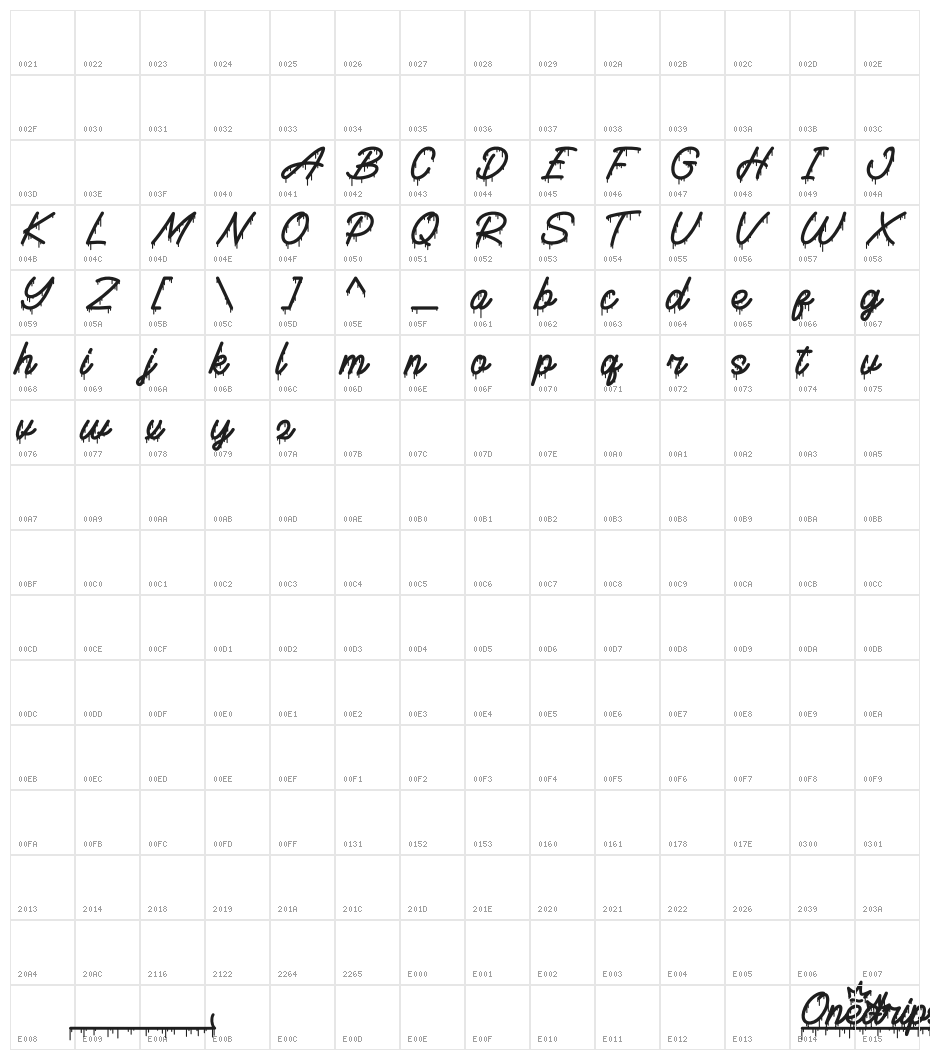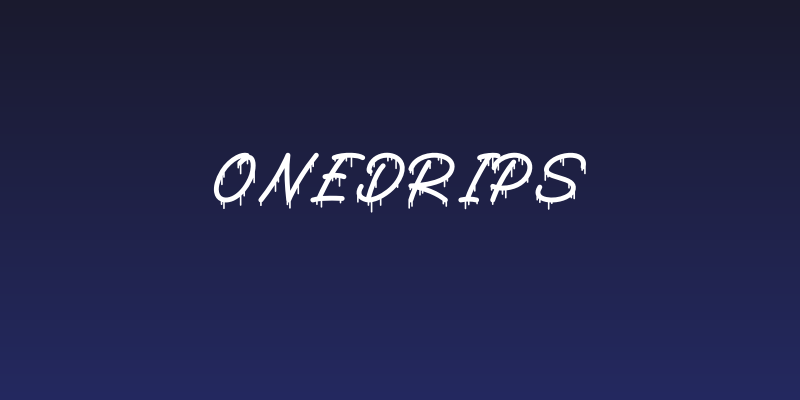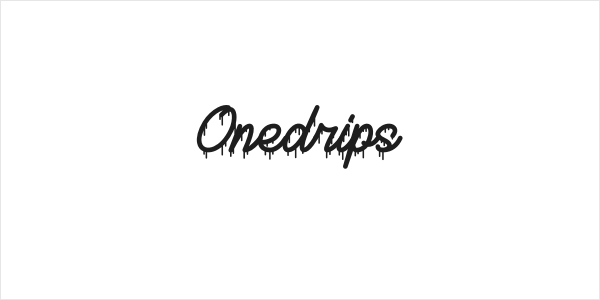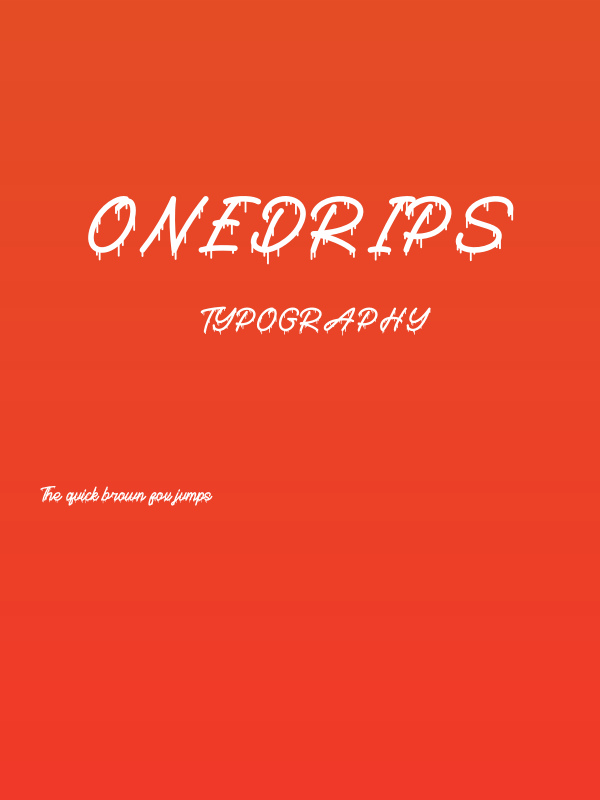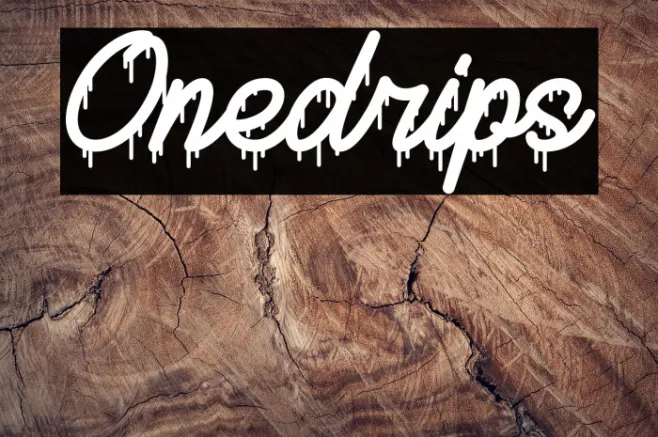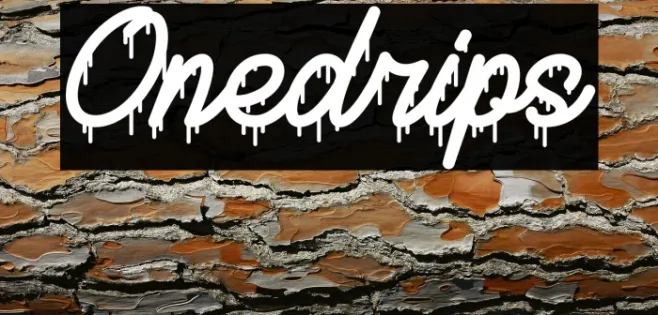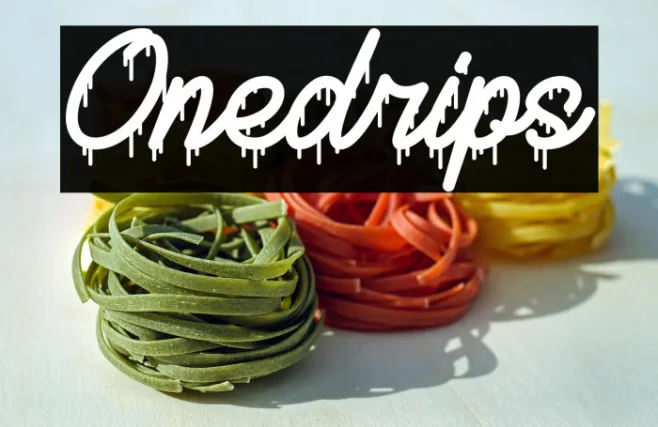
Onedrips Font
Onedrips Description
This font features a unique and edgy design with a dripping effect that gives it a graffiti-like appearance. The letters are connected in a cursive style, adding a fluid and dynamic feel. The uppercase and lowercase characters maintain a consistent style, with the dripping effect adding a sense of movement and creativity. The font is bold and eye-catching, making it suitable for projects that require a strong visual impact. The special characters also incorporate the dripping effect, ensuring a cohesive look across all elements.
| Overall Style | Modern, Edgy |
| Proposed Projects | Ideal for street art designs, edgy branding, music album covers, and creative posters. |